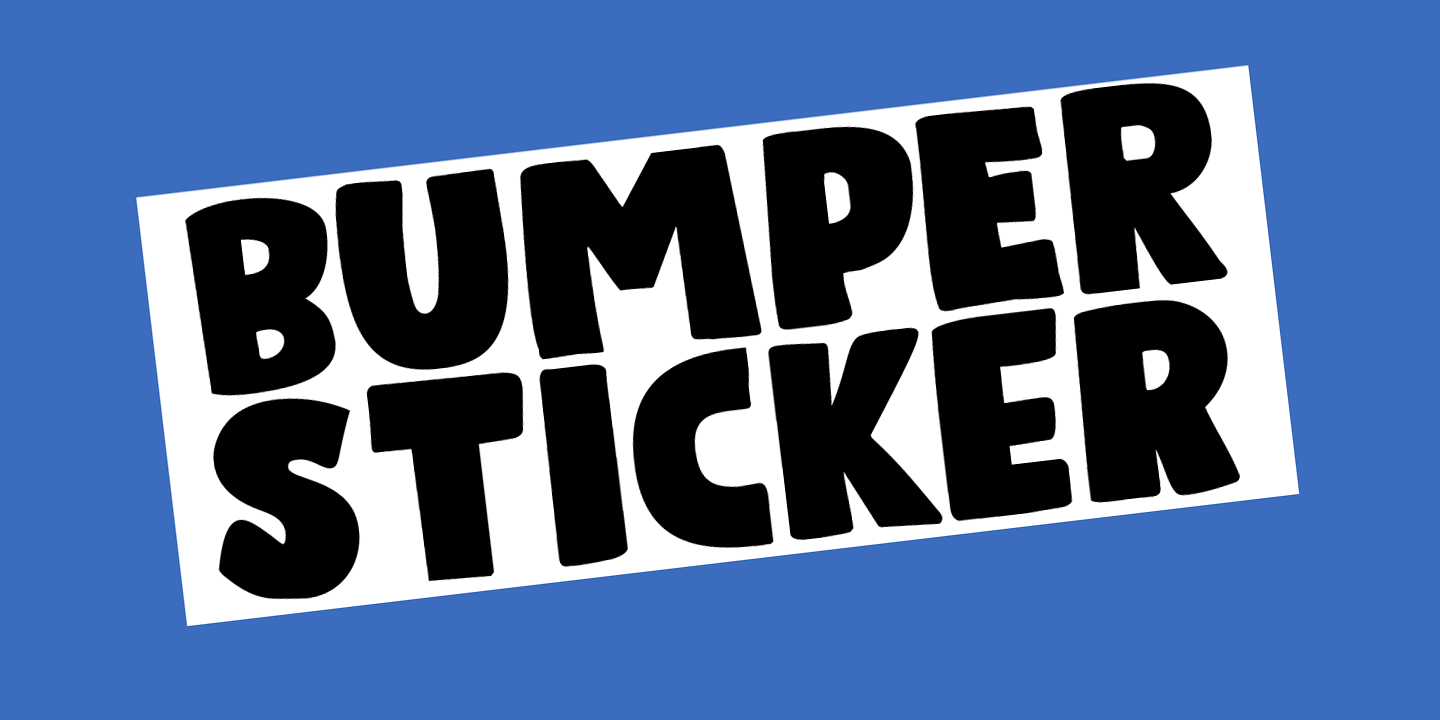
About Bumper Sticker
Bumper Sticker is a nice, uncomplicated display font. It is quite loud, a little heavy boned and very in-your-face. You could use it to design more bumper stickers, but I am sure you will come up with something better.